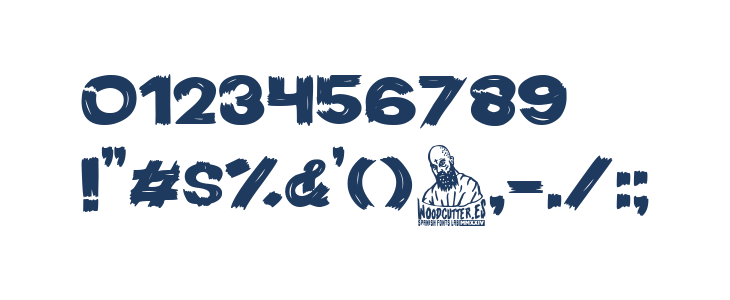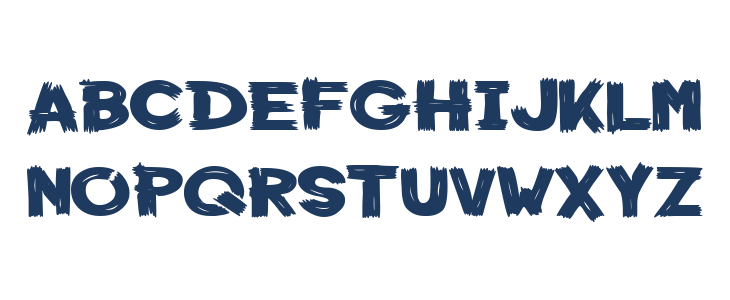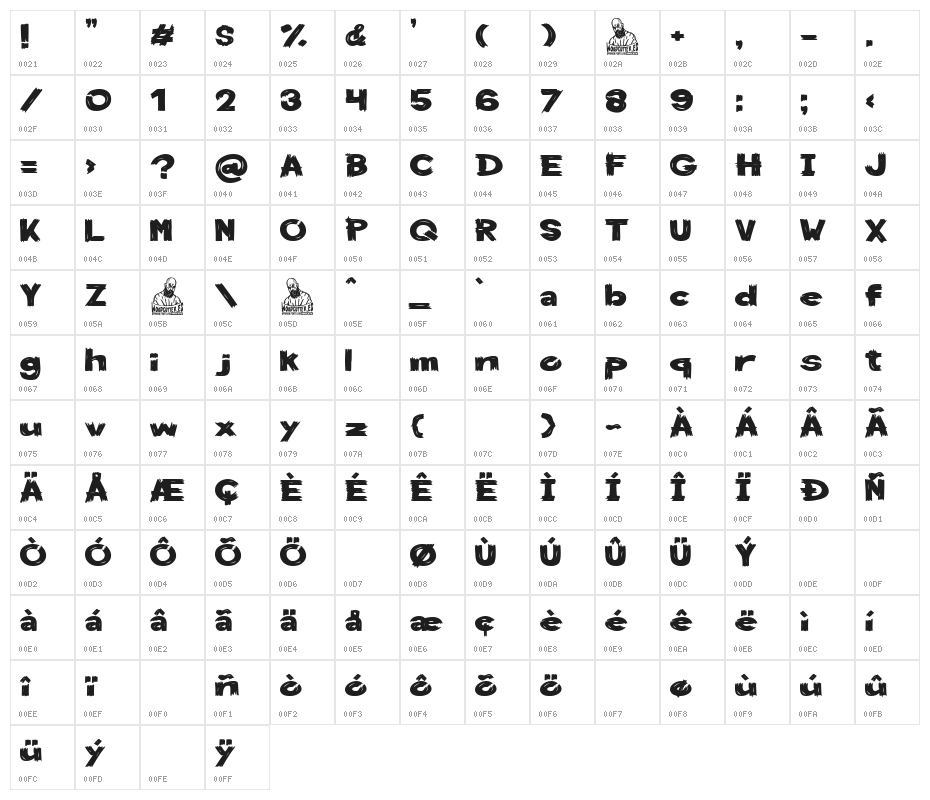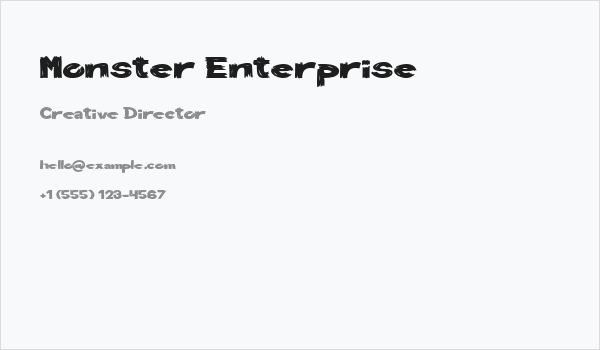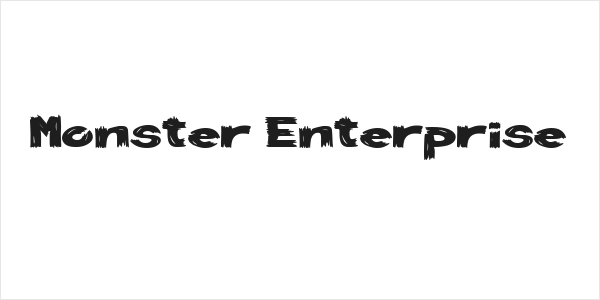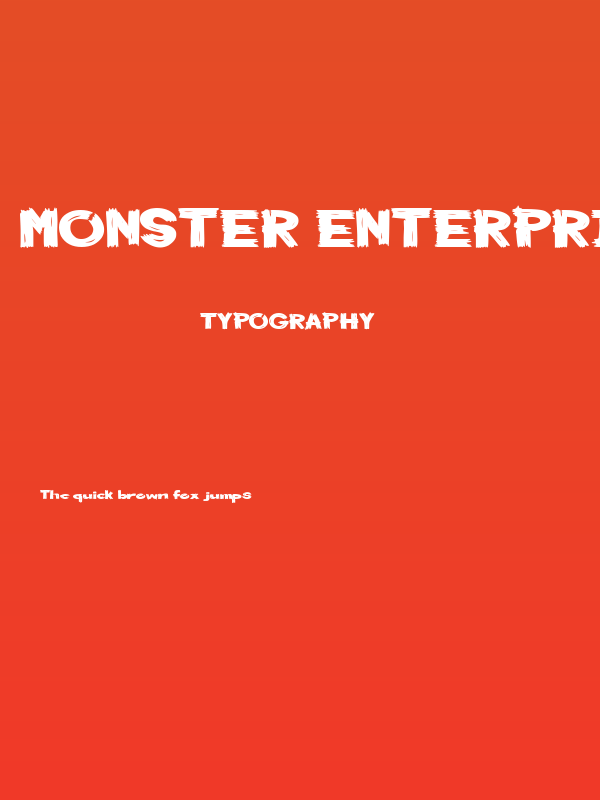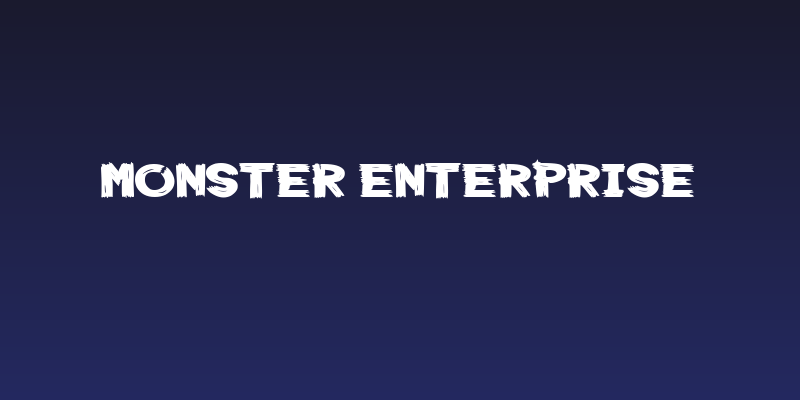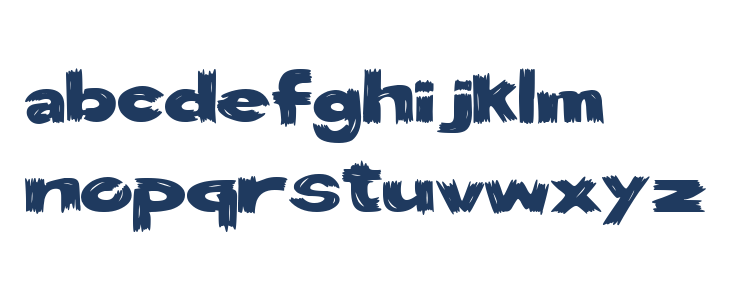
Monster Enterprise Font
Monster Enterprise Description
A bold, display typeface with rough, jagged edges and a distressed, brush-stroke appearance, giving it an energetic and monstrous feel. The characters are wide and heavy, with irregular outlines that create a sense of movement and chaos.
| Overall Style | Decorative, Energetic, Grunge |
| Use Case | Headlines, Posters, Logos, Themed Graphics |
| Proposed Projects | Halloween posters, horror movie titles, comic book covers, event flyers, themed party invitations, video game graphics. |